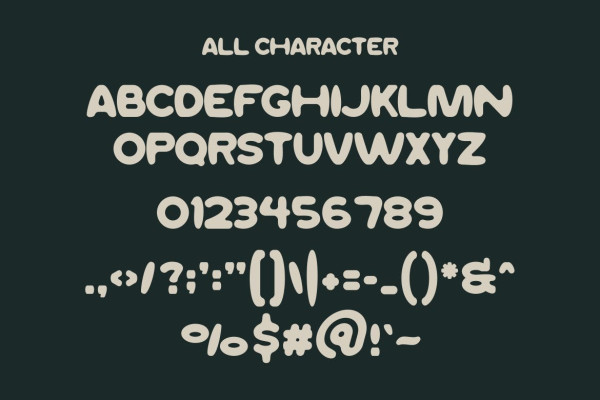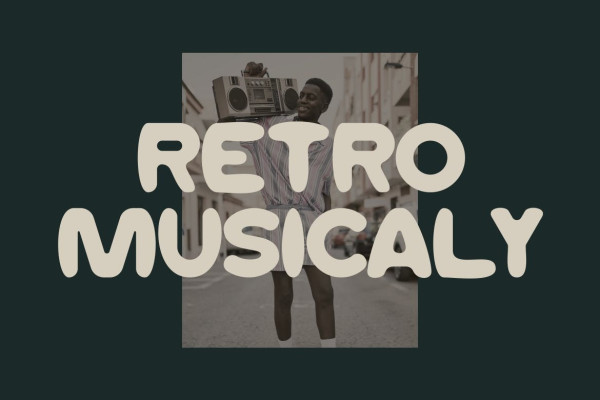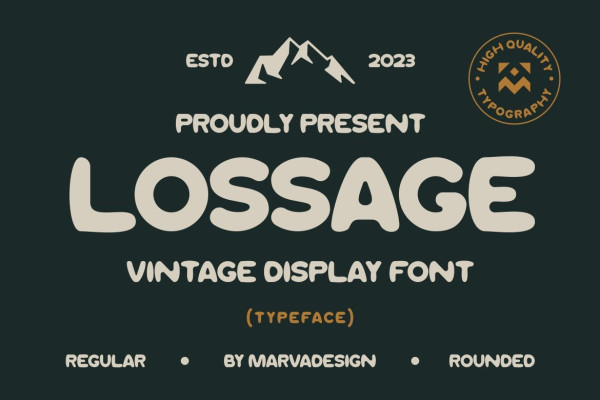
Lossage Font
LOSSAGE Font – Modern Font  is a bold and authentic display font. The font is suitable for any branding project such as logo, t-shirt print, product and many more. She is exceptional in a wide range of contexts